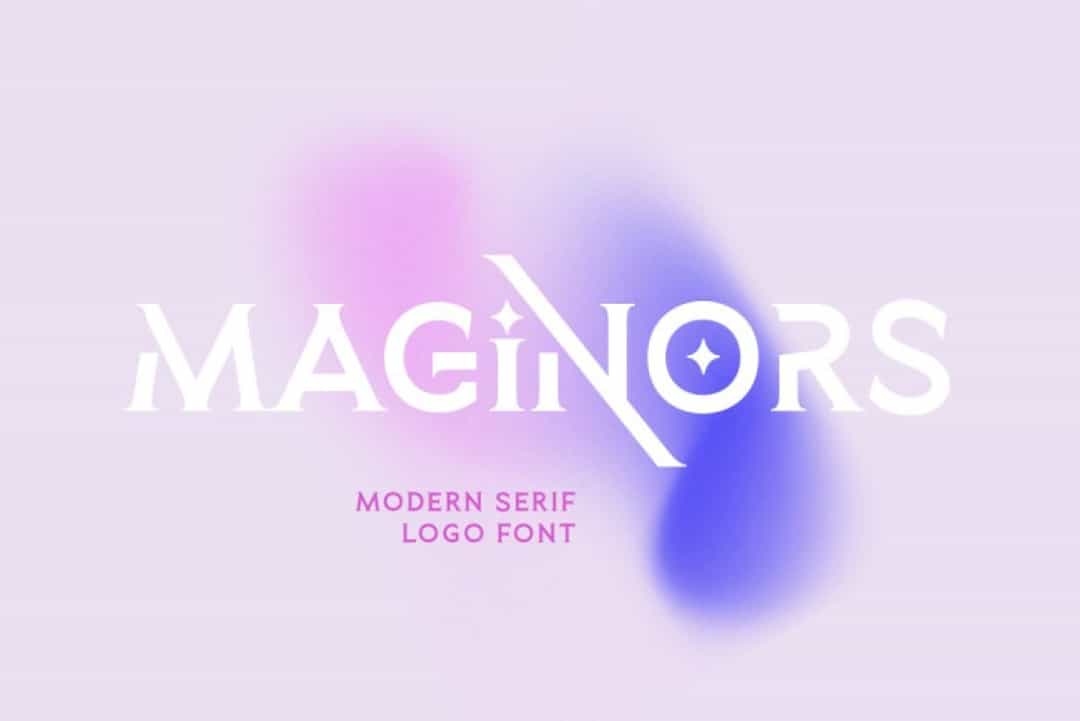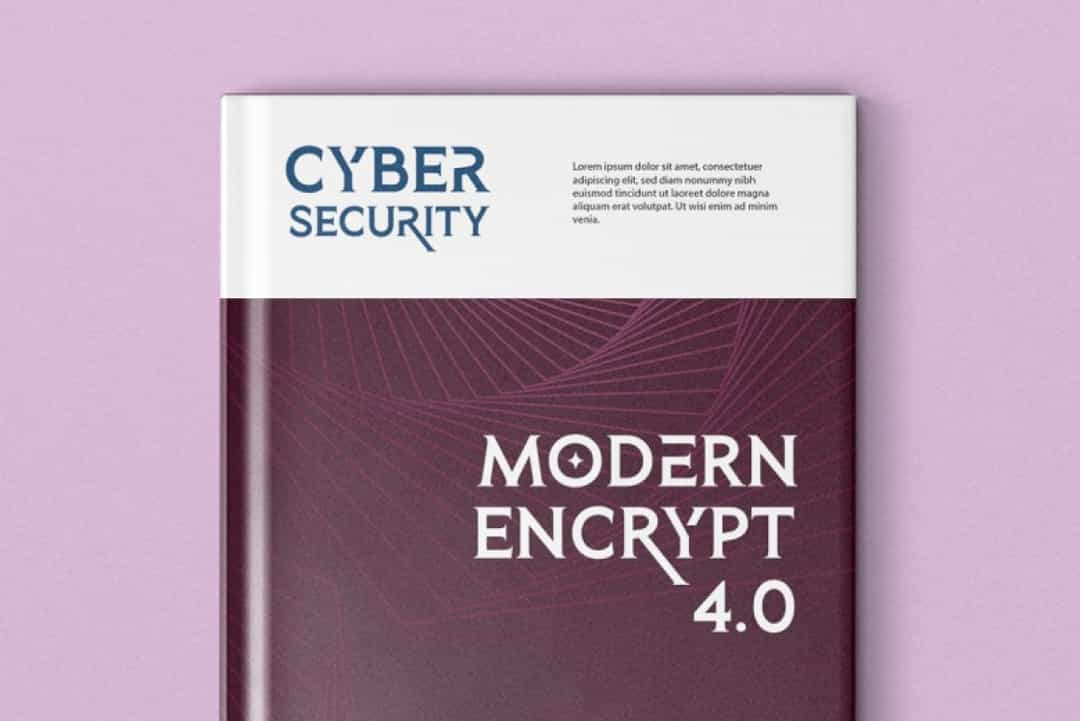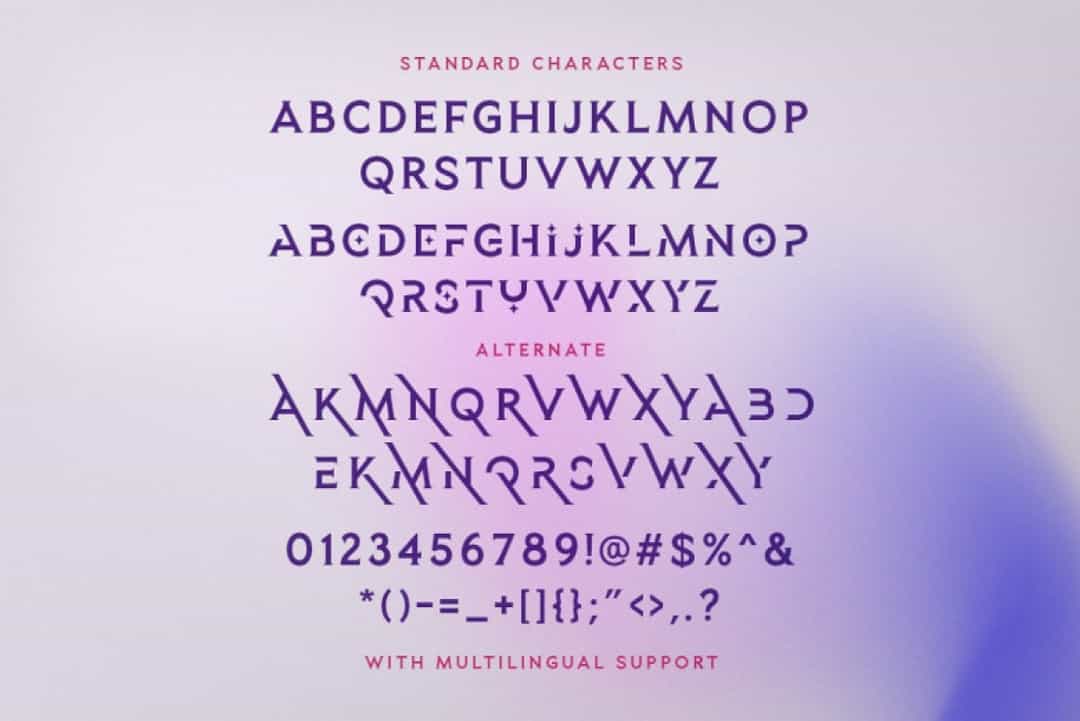
Maginors is an elegant serif-based trademark font featuring a distinct lowercase that will add flair and modernity to your logo design. This font can help create amazing designs using just its magical touches; and can even be used for logotype creation purposes! It can be used for all of these purposes and more!